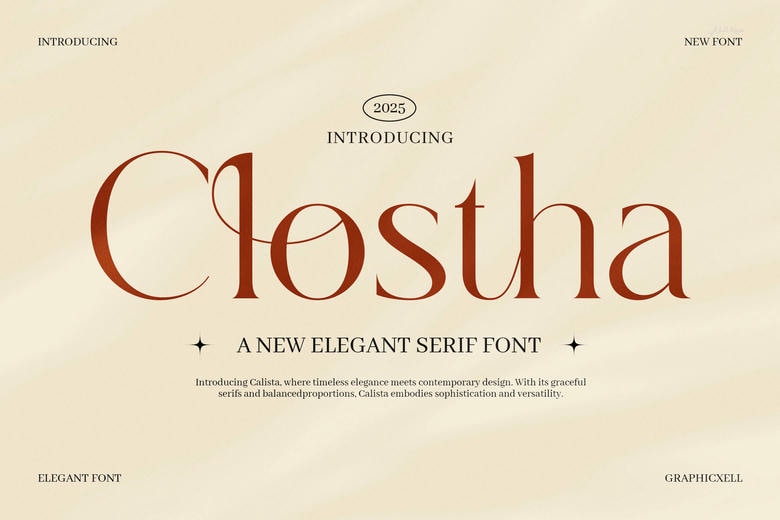
Clostha Font
Clostha Serif is a stylish and elegant font made for bold, modern projects. It blends the classic feel of serif fonts with a fresh, modern touch. Its strong contrast makes it a great choice for logos, branding, posters, and magazine layouts.
This font is ideal for anyone who wants a high-end look. It looks best in large sizes, where its details stand out, but it always stays clear and easy to read.
Clostha Elegant Serif Font